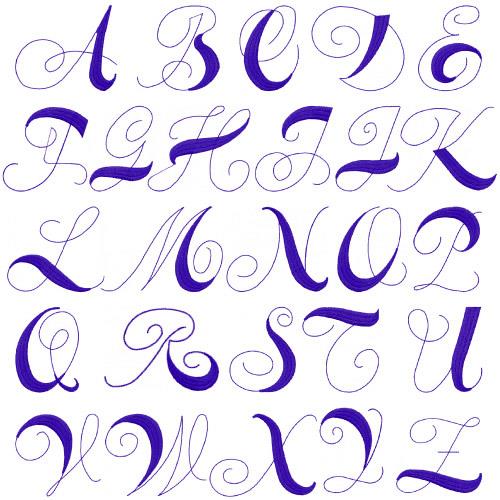
Embroidery Patterns is happy to present Simple Elegance Embrilliance Embroidery Font - Elegant Cursive Lettering - BX font machine embroidery font which has Script machine embroidery font with flowing letters perfect for personal projects on stationery or home decor. Designed in sophisticated hues of purple and white. Available in BX font and Embrilliance formats. included. If you would like to view more embroidery fonts and alphabets please search our embroidery fonts page.